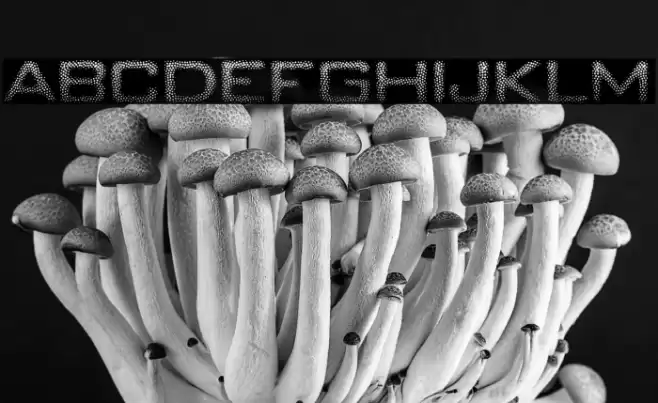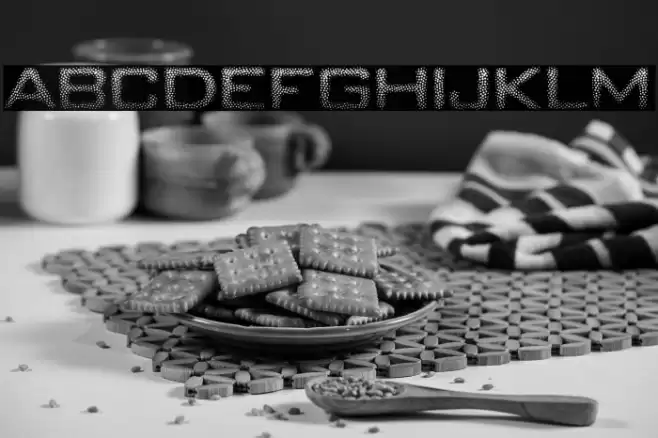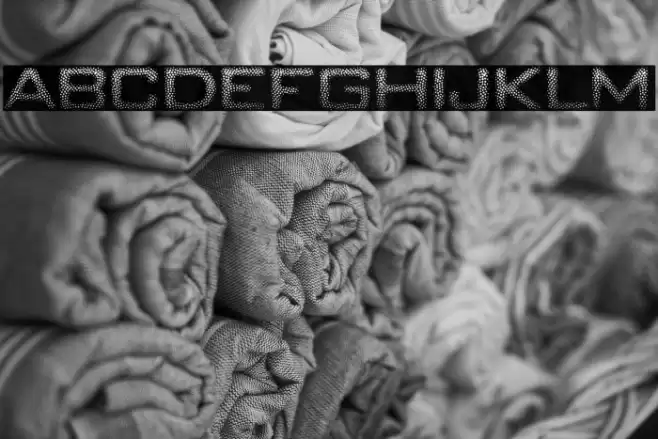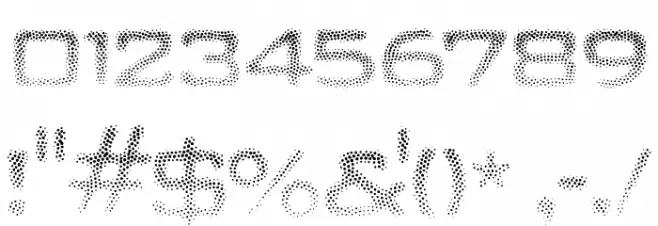
Unity Dances Font
Unity Dances Description
This font features a unique dotted pattern that creates a visually striking effect. The characters are constructed with a series of small dots, giving them a textured and modern appearance. The uppercase and lowercase letters maintain a consistent style, with clean lines and geometric shapes. The numerals and special characters follow the same design principle, ensuring uniformity across all glyphs. This font's distinct style makes it suitable for creative and artistic projects where a bold statement is desired.
A modern, dotted font with geometric shapes and a textured appearance from Distorted Eroded fonts.
- Proposed Projects: Ideal for digital art projects, modern posters, album covers, and branding that requires a unique and eye-catching typeface.